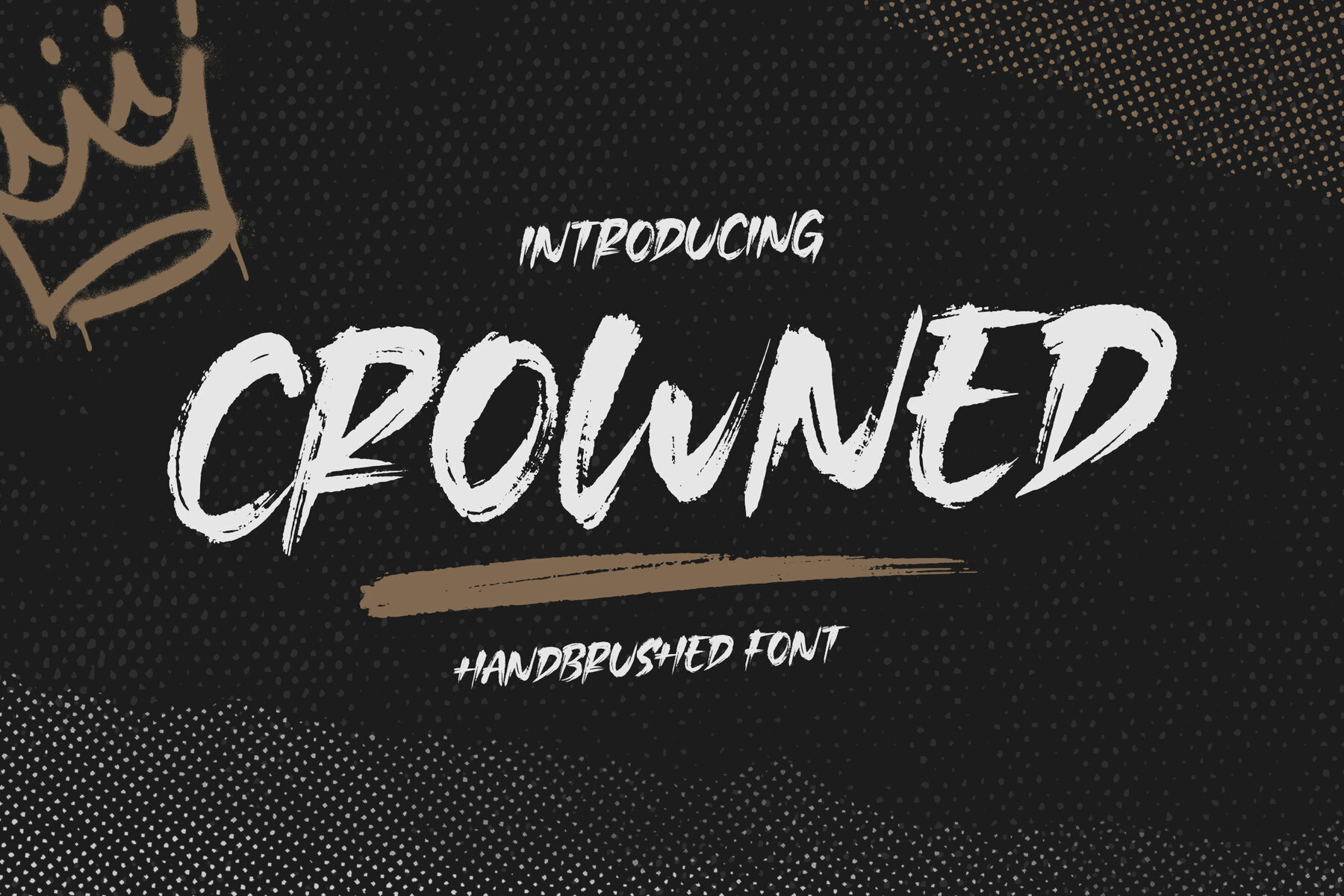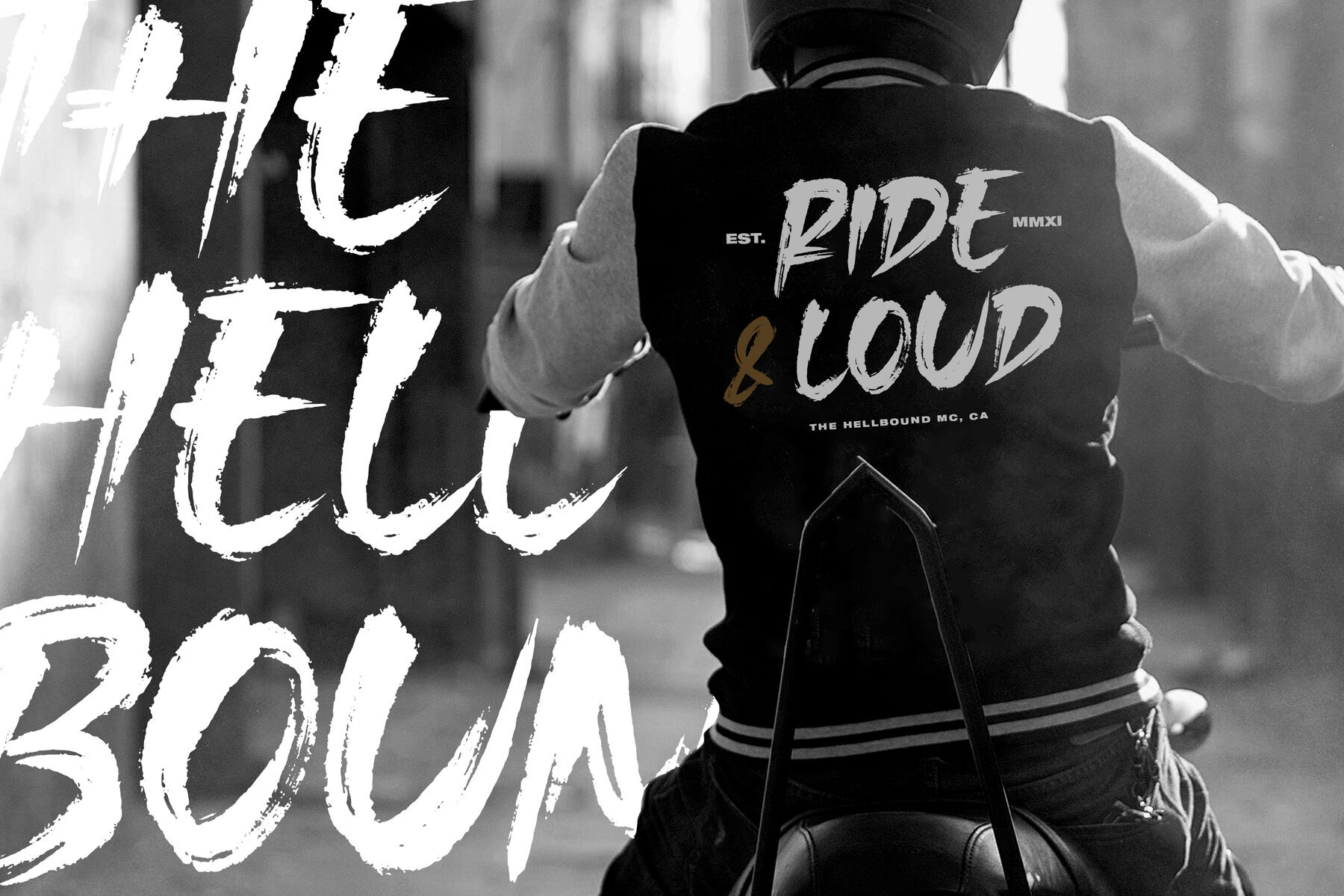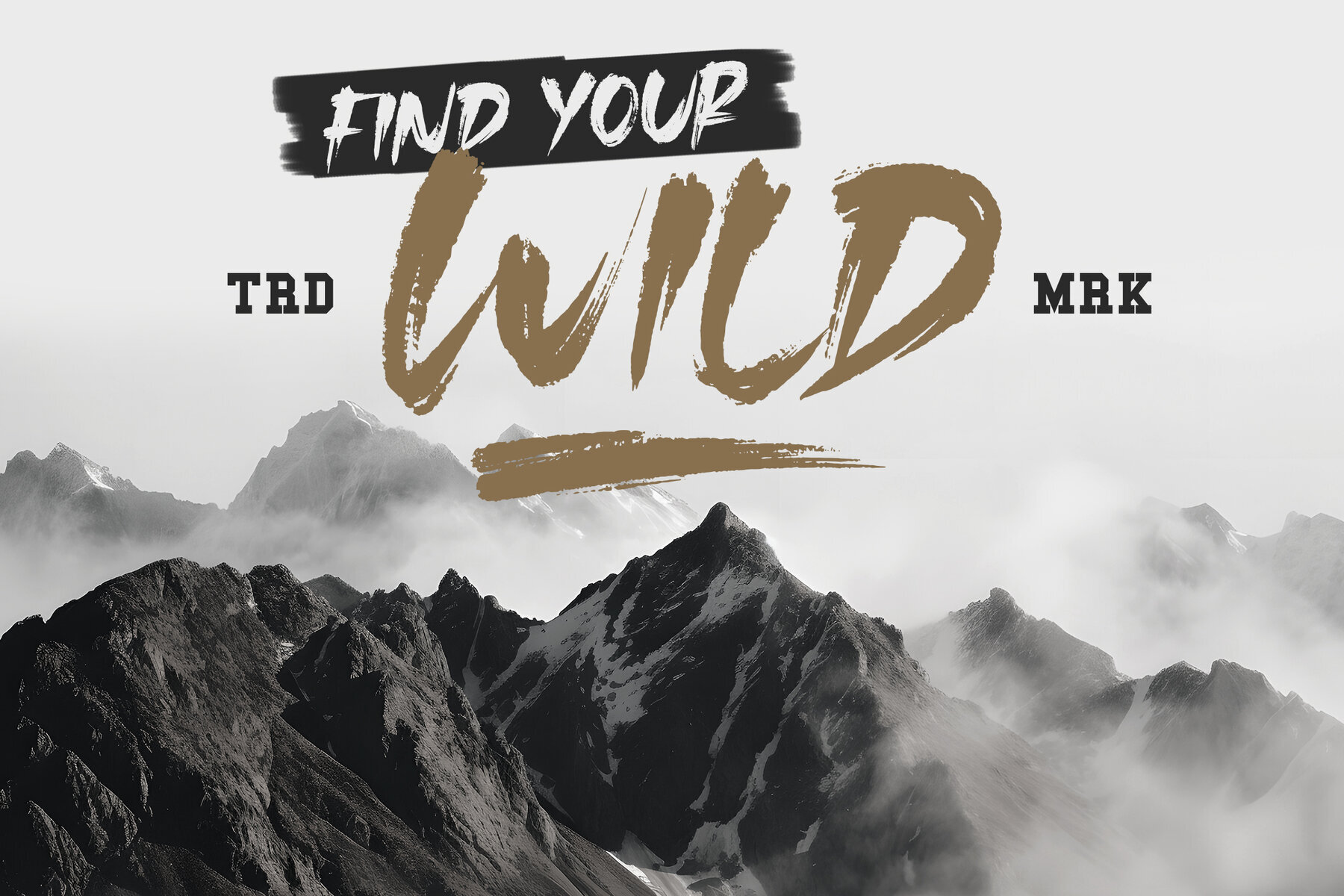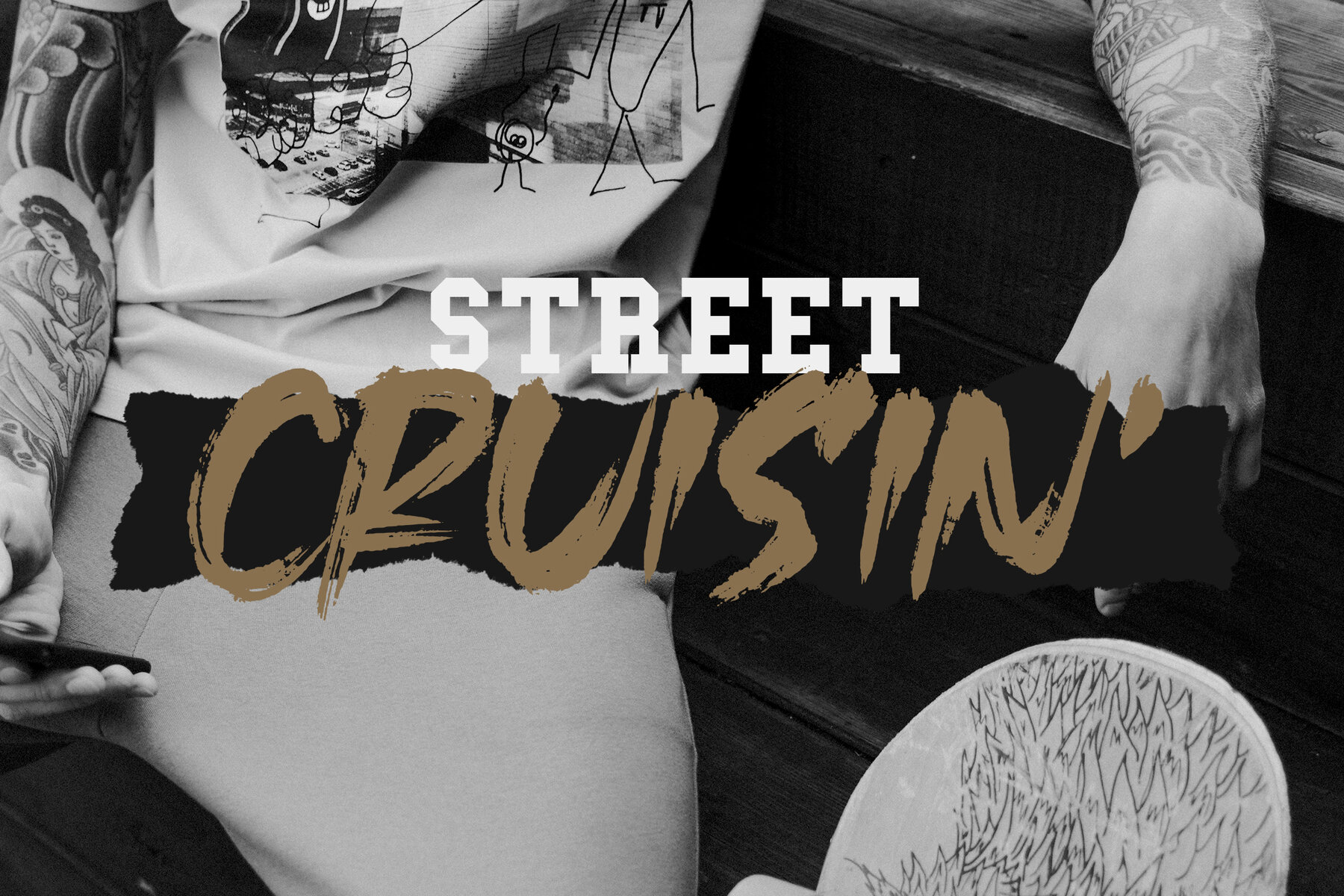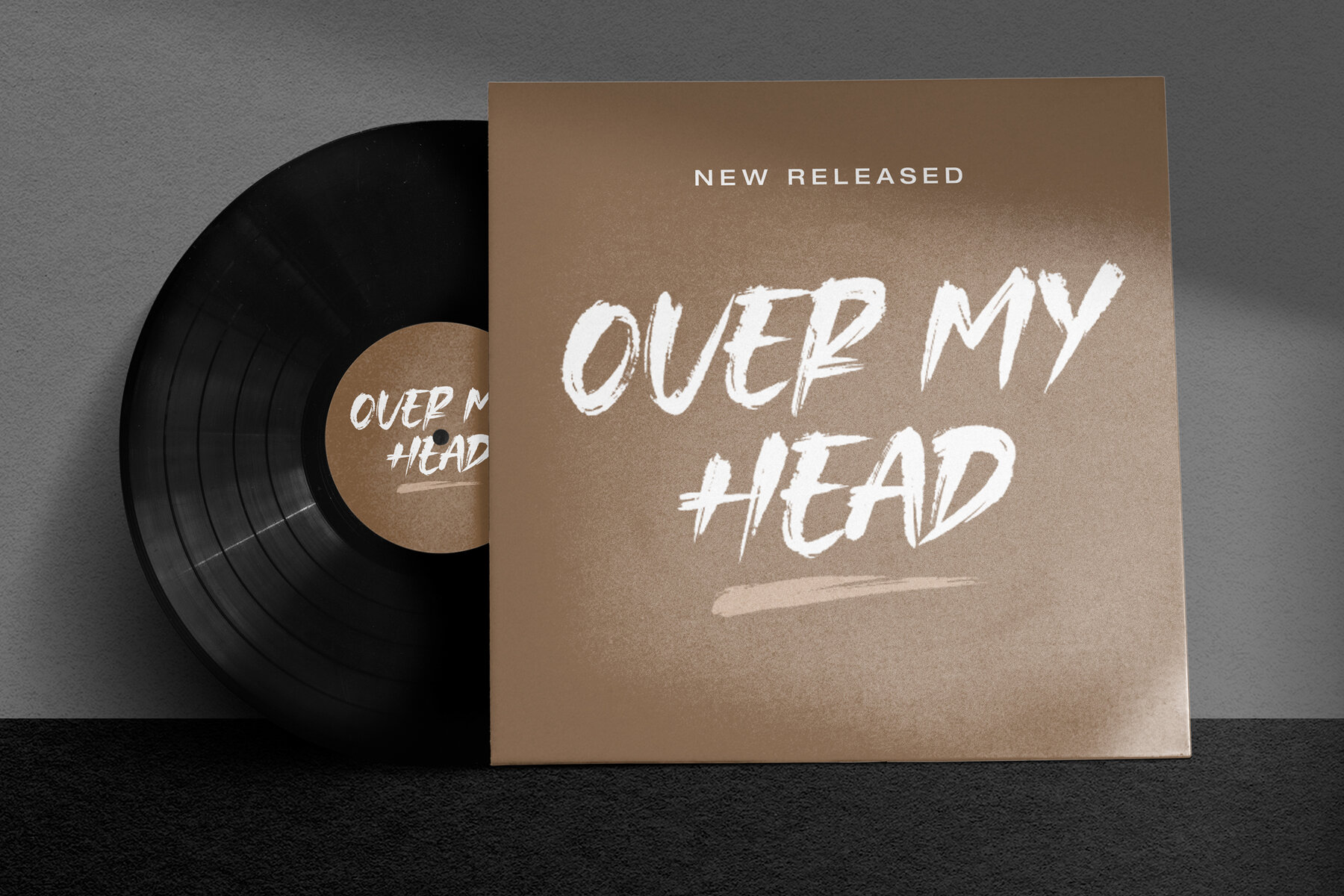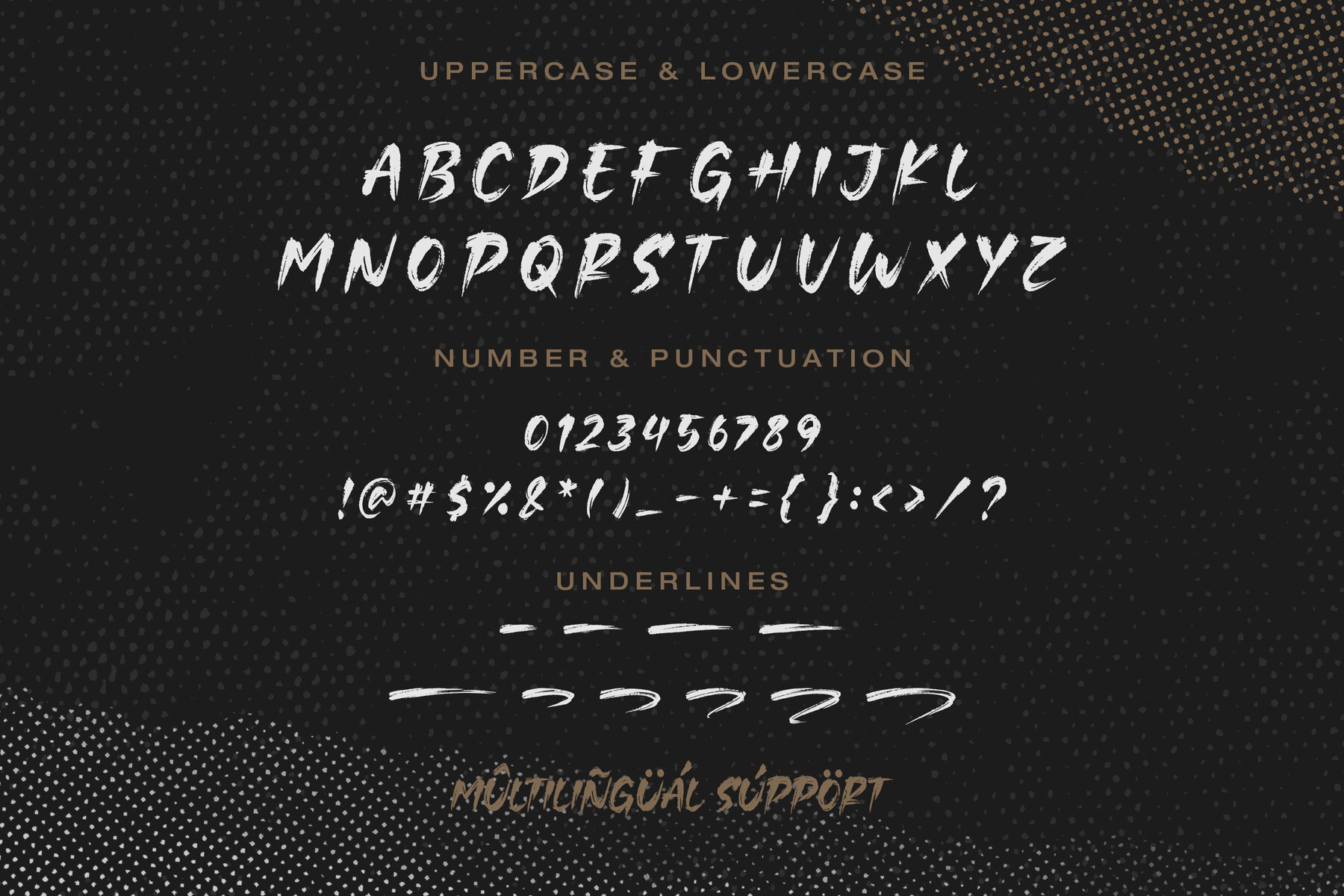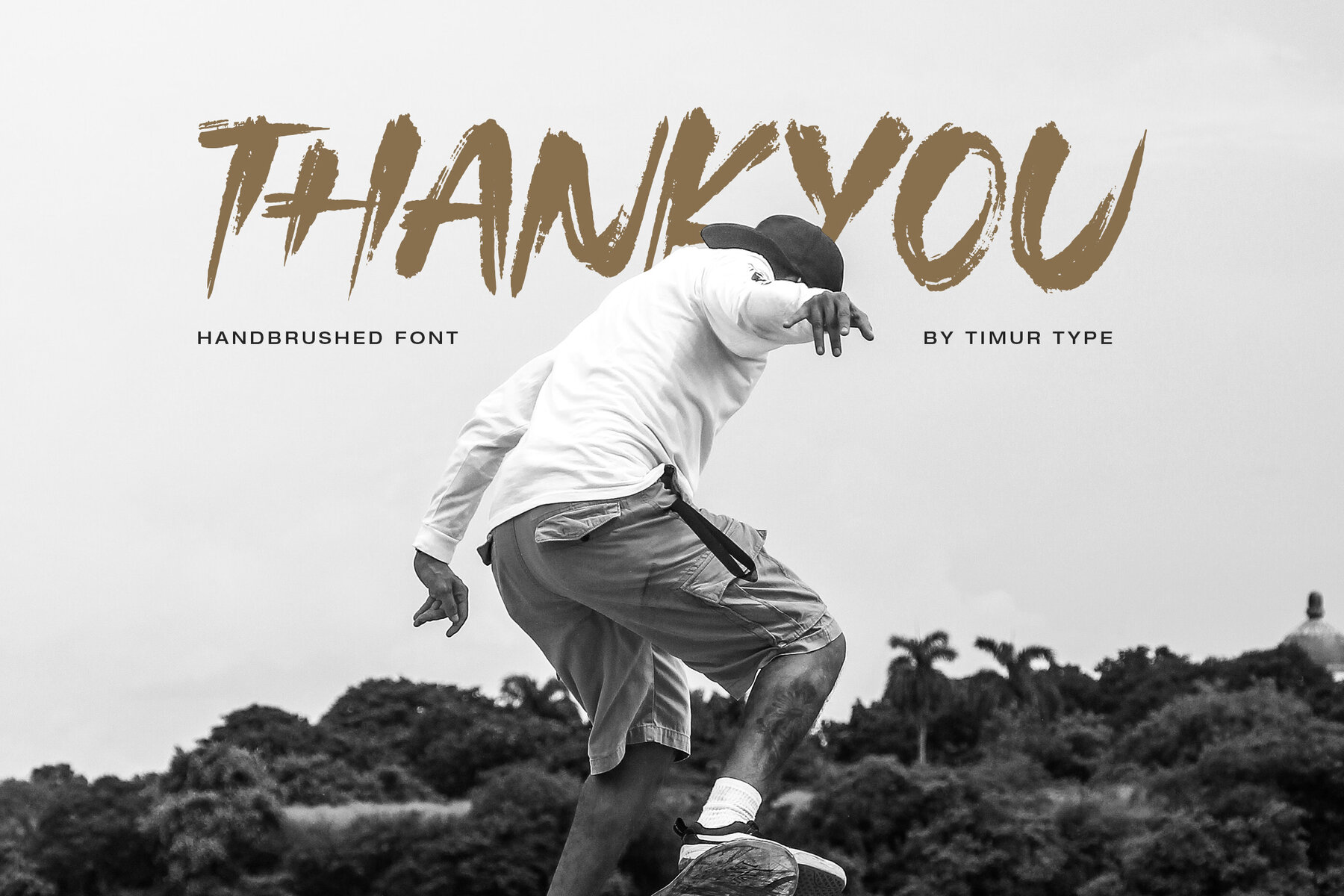
Crowned Font
Crowned Regular
Crowned is a modern and fresh hand-brushed font that brings a warm, inviting feel to any project. Ideal for product packaging, branding projects, magazines, social media posts, or wedding invitations, this font adds a personal touch to your words. Whether you're designing a logo or crafting a heartfelt message, Crowned delivers a stylish and approachable vibe.
This versatile font includes a full set of standard alphabet characters and punctuation, along with multilingual support, making it adaptable for any audience. Its unique hand-brushed style ensures your text stands out, adding a sophisticated yet organic look to your designs.